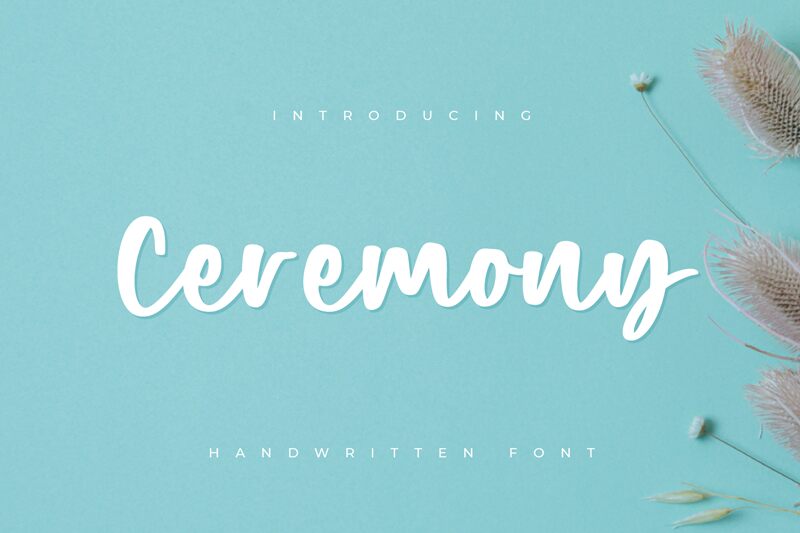
Introducing Ceremony - an expressive, casual handwritten font designed by Revo Farisky. Perfect for creating stylish invitations, crafting heartfelt cards, or adding a personal touch to any design project.
Designed by Revo Farisky from Typobia in 2021